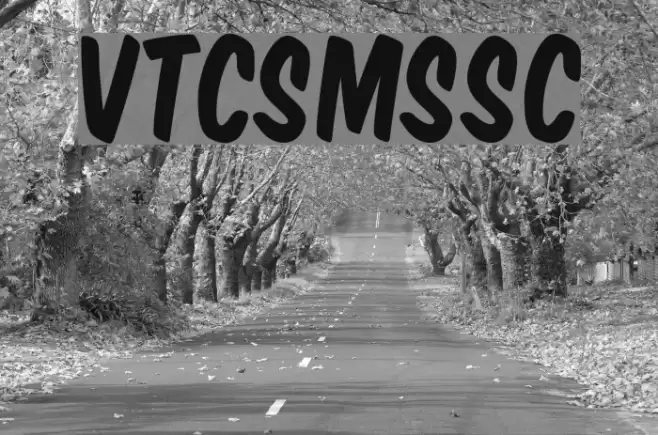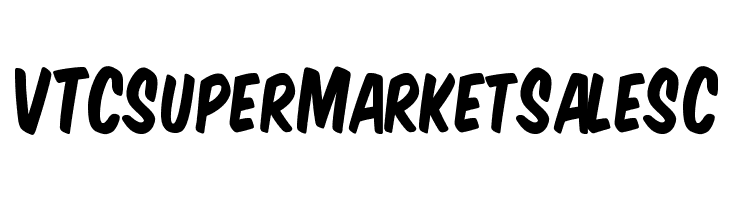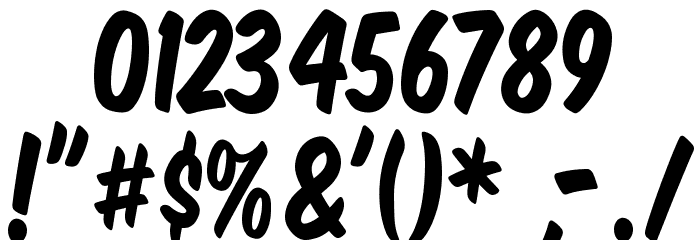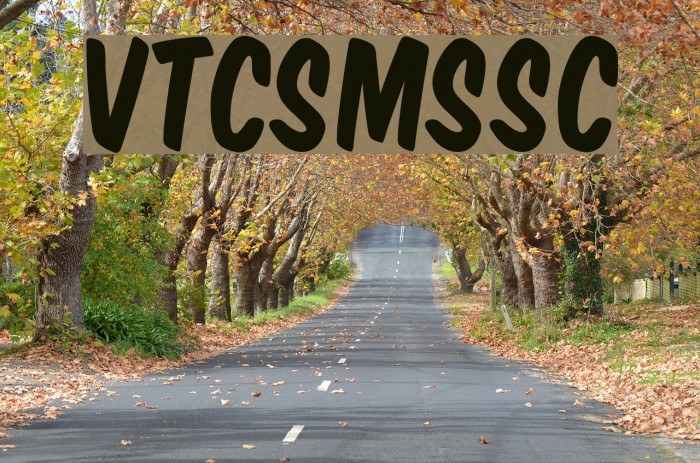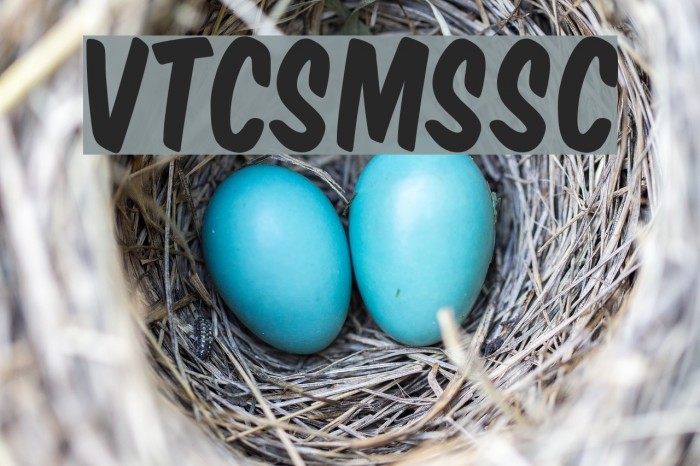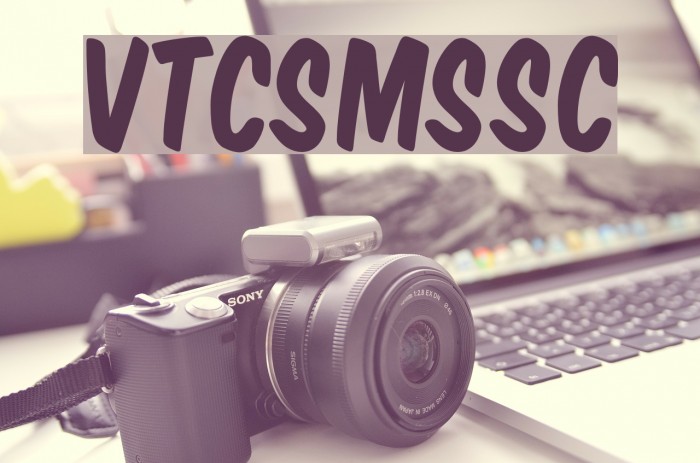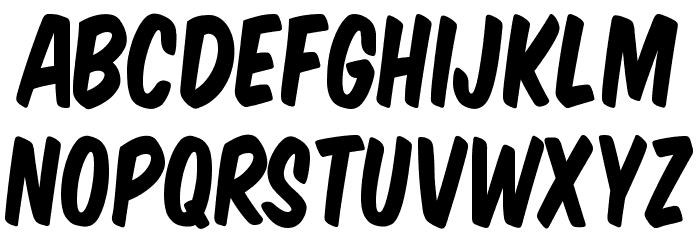
VTCSuperMarketSaleSC
This font features bold, dynamic characters with a playful and energetic style. The letters are slightly slanted, giving a sense of movement and excitement. The strokes are thick and consistent, creating a strong visual impact. The overall design is informal and friendly, making it suitable for eye-catching displays. The numerals and special characters maintain the same boldness and style, ensuring consistency across all text elements. This font's unique character shapes and bold presence make it ideal for projects that require a fun and engaging look.
A bold, playful font with dynamic, slanted characters.
- Proposed Projects: Ideal for posters, advertisements, children's books, and branding materials that require a lively and engaging appearance.
- Overall Style: Playful, Energetic
- Use Case: Headlines, Posters, Branding